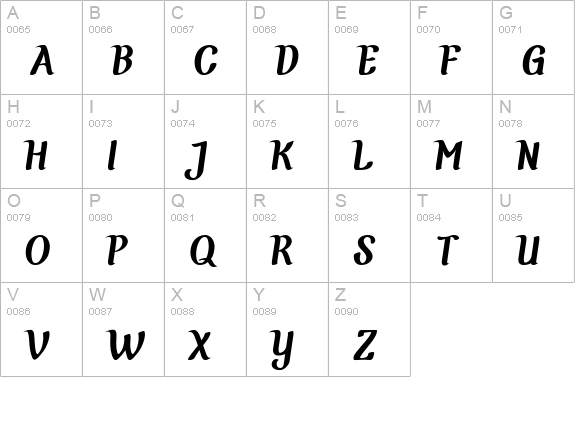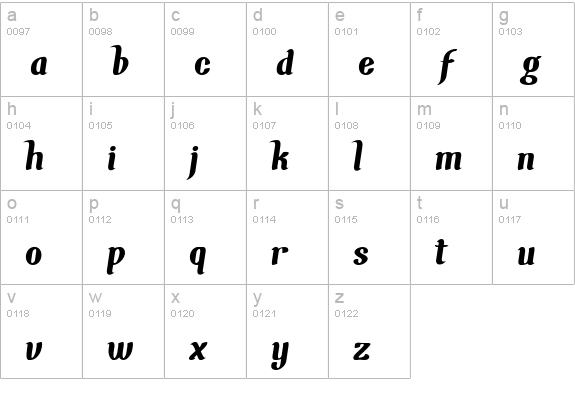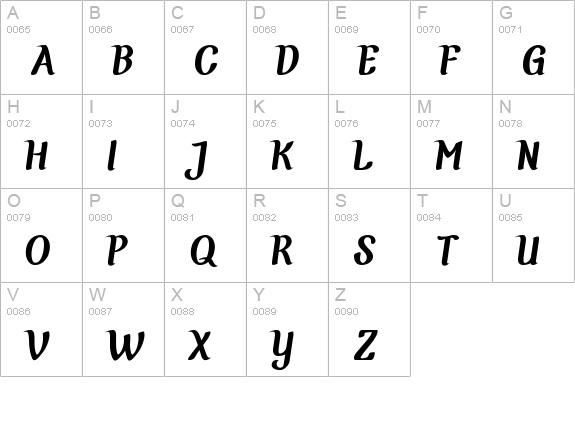
Chunky Wally is a demo font in the Fancy > Decorative category, designed by patria_typestudio. It has been downloaded 614 times and is available for Windows, Mac and Linux.
Introducing Chunky Wally font, a delightful and playful typeface that is sure to add a touch of whimsy to your designs. With its bold and chunky letterforms, Chunky Wally exudes a sense of fun and creativity, making it perfect for a variety of projects.
This charming font is not only eye-catching but also versatile, making it suitable for anything from branding to social media graphics to children's book illustrations. Its friendly appearance and unique character make it a standout choice for those looking to make a statement with their typography.